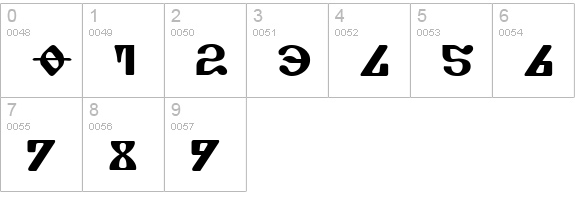
Piper Pie Bold Expanded is a strong, high-contrast, extended-width variant in the Piper typeface family \xE2\x80\x94 well suited to headlines, attention-grabbing titles, and strong calls-to-action.
Piper Pie Bold Expanded font is a striking and bold typeface that exudes confidence and modernity. With its expanded characters and bold design, this font commands attention and makes a strong statement in any design project. The thick, rounded letterforms give a friendly and approachable feel, while maintaining a sense of professionalism. What sets Piper Pie Bold Expanded font apart is its versatility - perfect for headlines, titles, posters, and branding materials. Whether you're looking to make a bold statement or add a touch of personality to your designs, this font is sure to stand out. And the best part? Piper Pie Bold Expanded font is available for free download at FontsMarket.com. So go ahead and elevate your designs with this eye-catching and impactful typeface today!